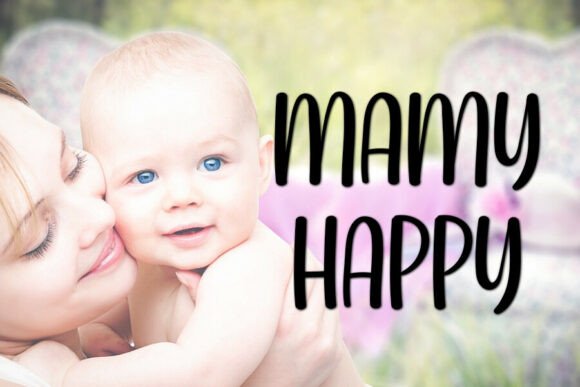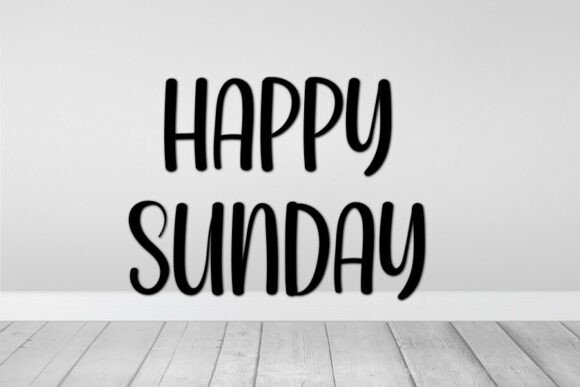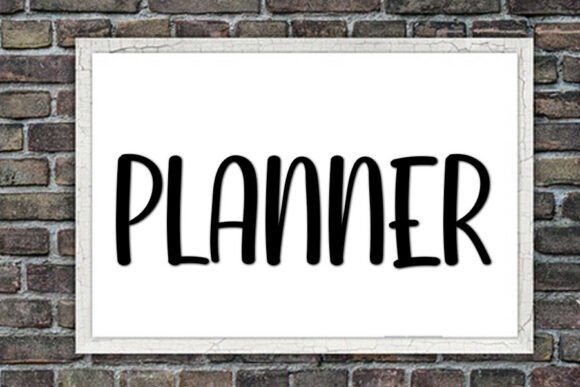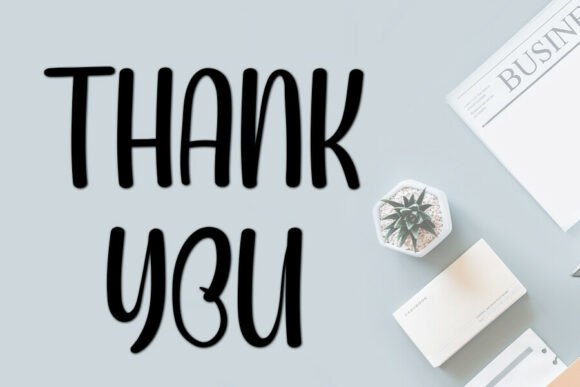
Welcome December: Elevate Your Designs with Elegance and Style
As the year comes to a close, it’s time to reflect on the beauty of simplicity and the power of detail. For designers and crafters, the right typography can make all the difference in elevating a project from ordinary to extraordinary. This is where the December Font comes in – an elegantly crafted, contemporary typeface designed for those with an appreciation for style and detail.
The Essence of Simplicity and Uniqueness
The December Font boasts a refreshing, crisp design that captures the essence of simplicity while retaining an air of uniqueness. Its clean lines and precise curves make it perfect for a wide range of applications, from YouTube banners and cover logo mockups to wedding invitations and ID cards. Whether you’re a professional designer or a crafty enthusiast, this font is sure to impress with its distinctive charm.
Perfect for Elevating Your Designs
What sets the December Font apart is its versatility. It’s not just a font – it’s a tool for elevating your designs to another level. Imagine adding a touch of sophistication to your YouTube banner, or making your wedding invitation stand out with a unique and stylish typography. The December Font is perfect for:
- YouTube banners and cover logo mockups
- Wedding invitations and event branding
- ID cards and badges
- Flyers and brochures
- Assorted crafts and DIY projects
A Commitment to Sophistication, Progress, and Development
The December Font is more than just a typeface – it’s a commitment to sophistication, progress, and development. By incorporating this font into your designs, you’re not just adding a stylish touch; you’re also advancing your business one stylish step further. In today’s competitive market, attention to detail and a keen sense of style can make all the difference in standing out from the crowd.
Why Choose the December Font?
So, why choose the December Font over other typefaces? Here are just a few reasons:
- Unique and distinctive design: The December Font boasts a one-of-a-kind design that’s sure to make your projects stand out.
- Versatile and adaptable: This font is perfect for a wide range of applications, from digital designs to print materials.
- Elegant and sophisticated: The December Font exudes a sense of style and sophistication, perfect for elevating your designs.
- Easy to use and integrate: With its clean lines and precise curves, this font is easy to read and integrate into your projects.
Tips for Using the December Font
To get the most out of the December Font, here are a few tips:
- Experiment with different sizes and colors: Play around with different sizes and colors to find the perfect combination for your design.
- Pair with complementary fonts: Try pairing the December Font with complementary fonts to create a unique and visually appealing typography.
- Use it consistently: Use the December Font consistently throughout your design to create a cohesive and professional look.
In conclusion, the December Font is a game-changer for designers and crafters looking to elevate their projects with elegance and style. Its unique and distinctive design, versatility, and commitment to sophistication make it the perfect choice for a wide range of applications. Whether you’re looking to advance your business or simply create something beautiful, the December Font is sure to impress. So why wait? Welcome December into your design toolkit today and experience the power of stylish typography for yourself.